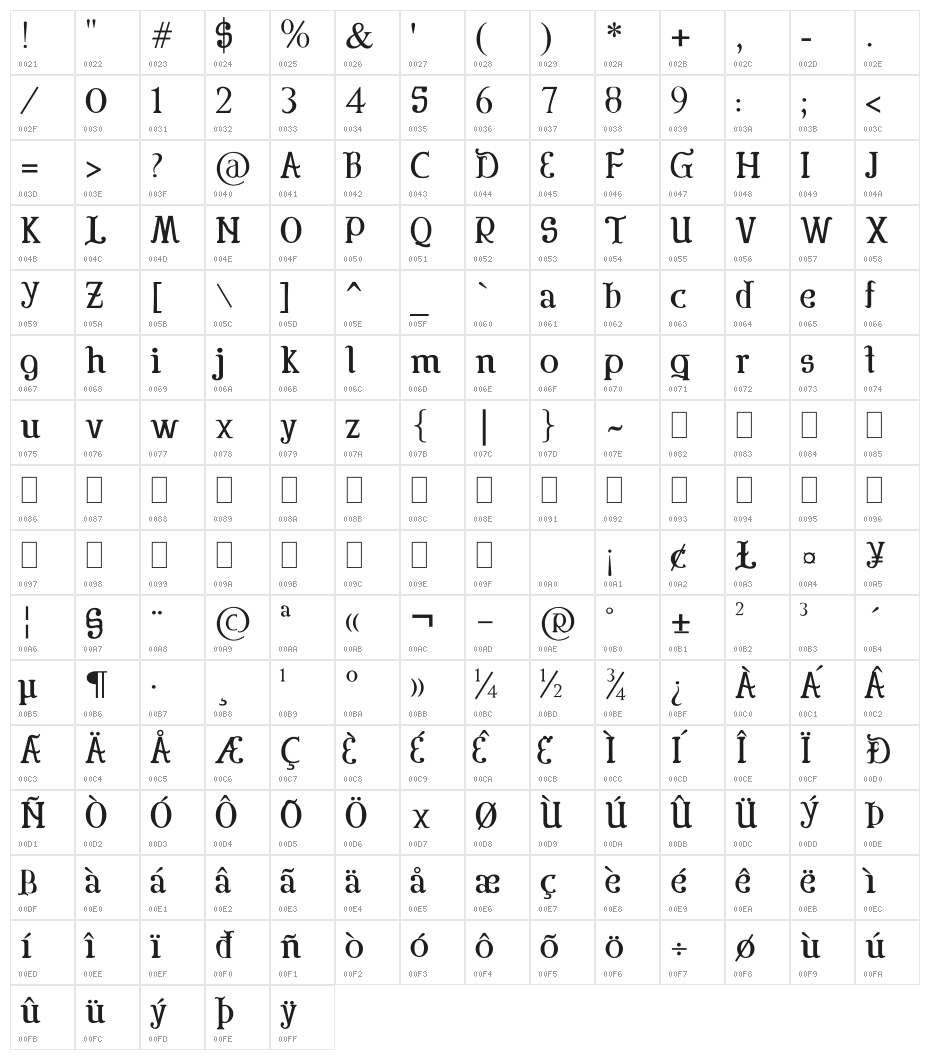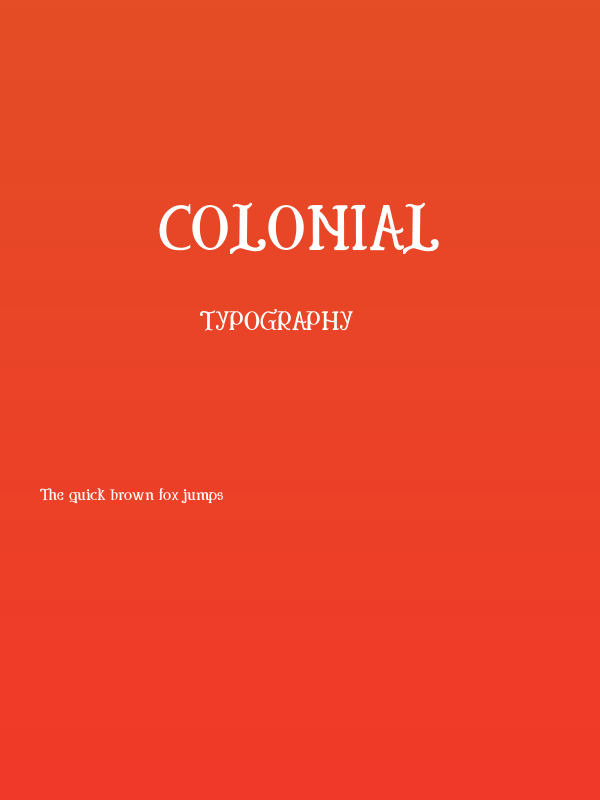
Colonial Font
Colonial Description
This font features a classic and elegant serif style with distinct, flowing curves and a slightly vintage feel. The uppercase letters are bold and commanding, with intricate serifs that add a touch of sophistication. The lowercase letters maintain a consistent style, offering a harmonious balance between readability and decorative flair. Numbers are clear and well-defined, matching the overall aesthetic. Special characters are thoughtfully designed, ensuring they complement the alphabetic characters seamlessly. This font's timeless appeal makes it suitable for a variety of design projects.
| Proposed Projects | Ideal for book covers, invitations, branding, and editorial design. |